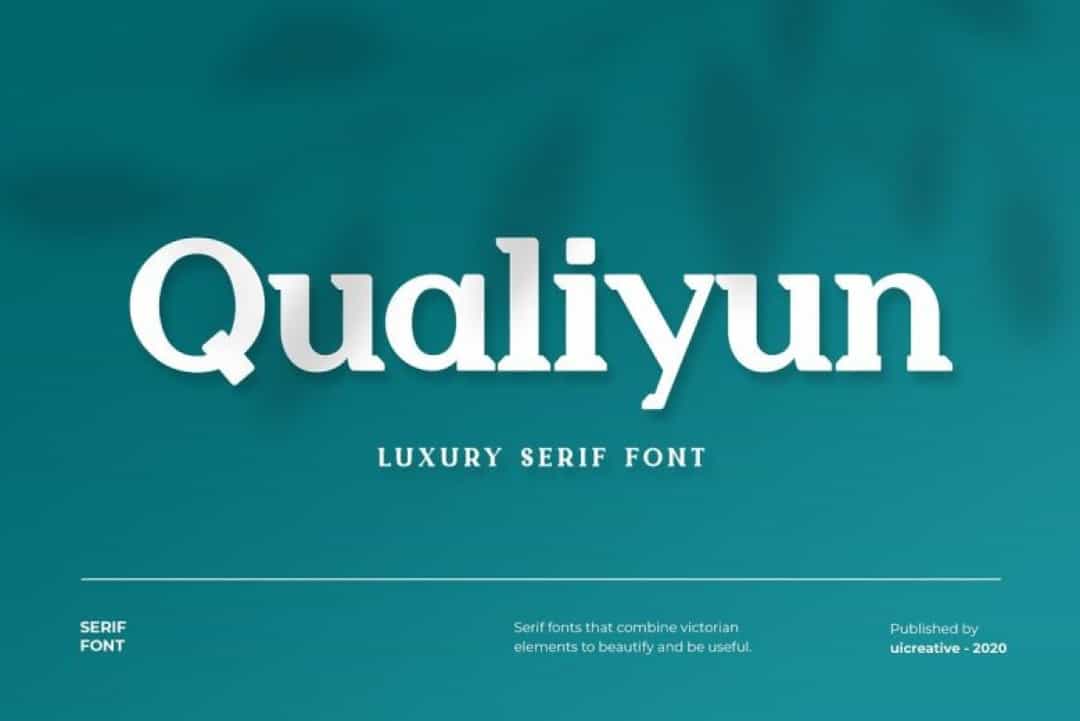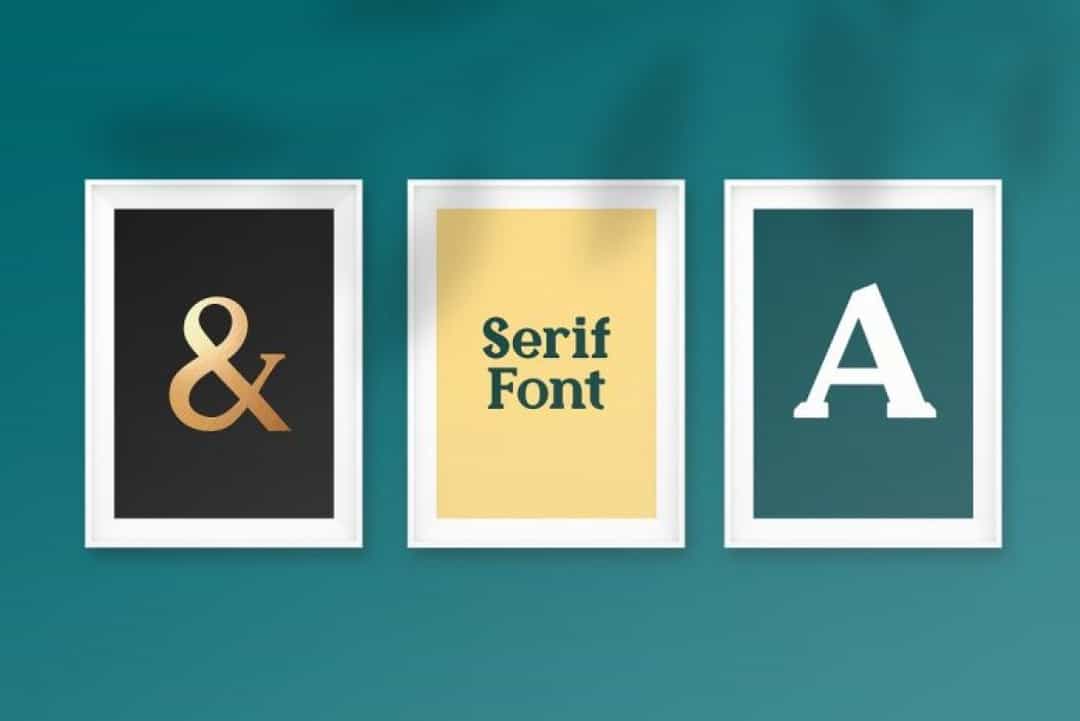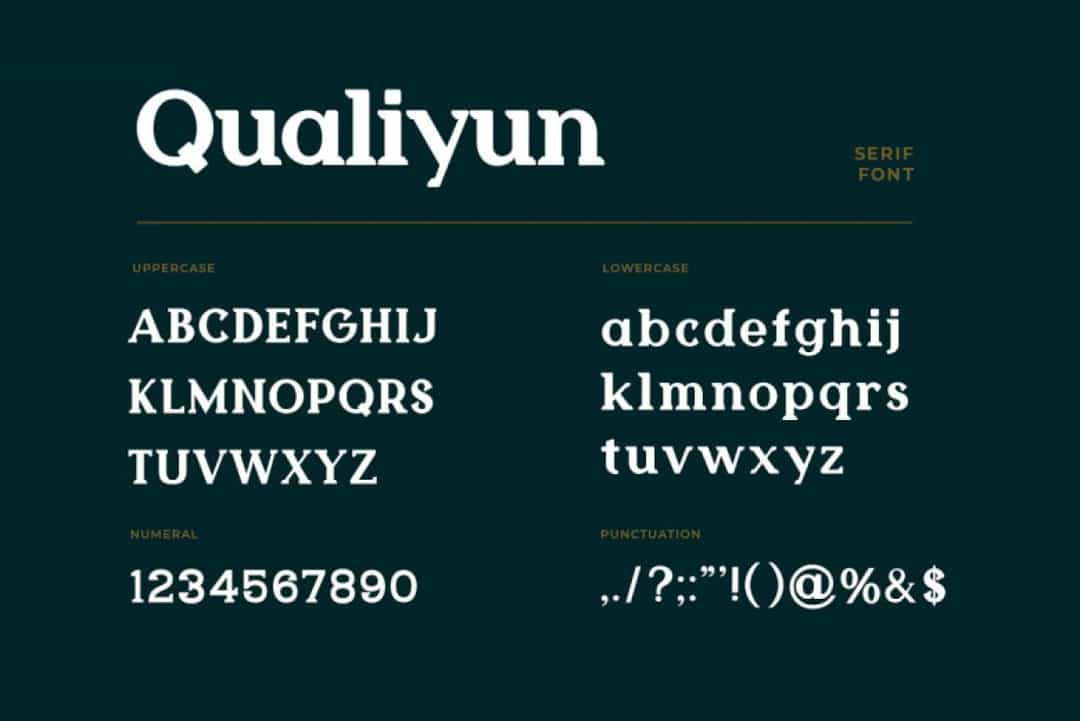
Discover Qualiyun Font, part of the Serif Basic collection—a versatile and unique font perfect for adding a personal touch to your projects. Download it for free and enjoy crafting designs with style, from invitations to social media posts. This font is available exclusively for personal use, giving you the freedom to create without limits. Unlock your creativity with Qualiyun Font today!
Qualiyunis is a premium serif typeface created and distributed by UICreative. Suitable for various designs including stationary, signature, wedding logos, typography quotes magazines or book covers, headers on websites and clothing branding/packaging designs and much more, it makes an excellent addition to your designs.